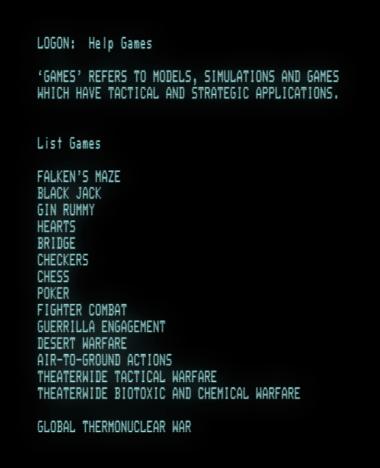
WarText
A typeface based on the IMSAI 8080 terminal from the 1983 movie WarGames.
Here's a sample!
Terrific legibility!
@KindredCoda - Excellent re-creation of the typeface! :^)